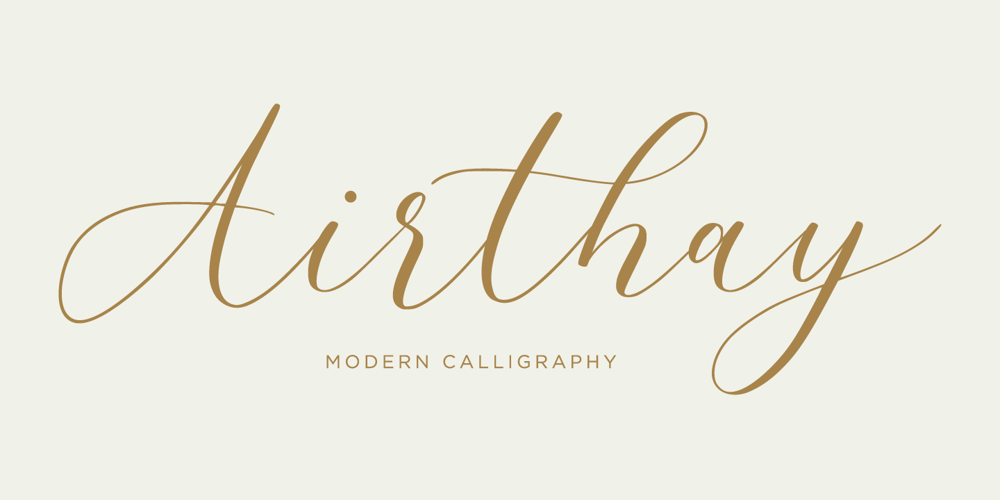
Airthay
Airthay font
Airthay Font Family was designed by Sigit Dwipa and published by Nirmana Visual. Airthay contains 1 styles and family package options. Airthay is a Beautiful Modern Calligraphy script font carefully created with a touch of romantic.This is a beautiful combination of timeless elegance and authentic calligraphy,For those of you who are needing a touch of elegance and modernity for your designs, this font is for you!